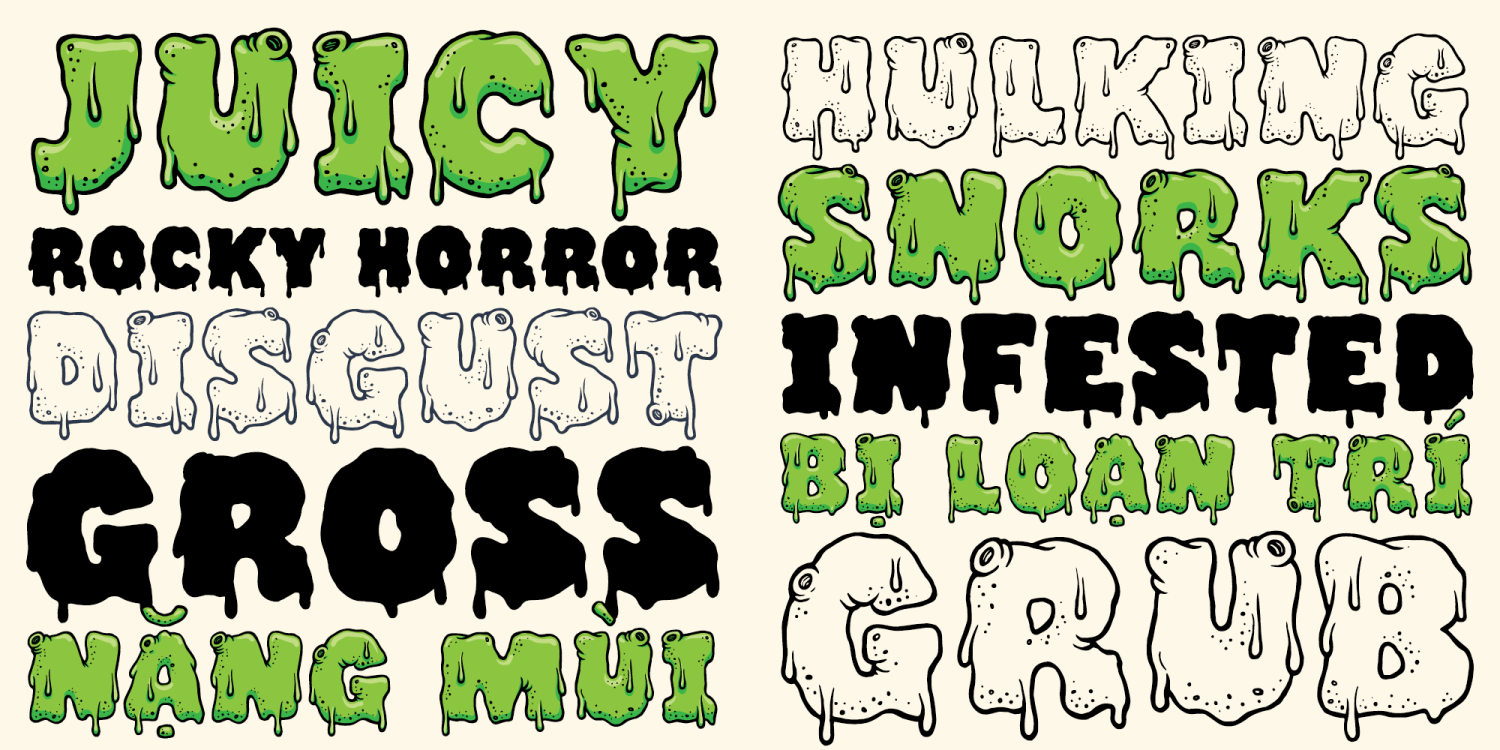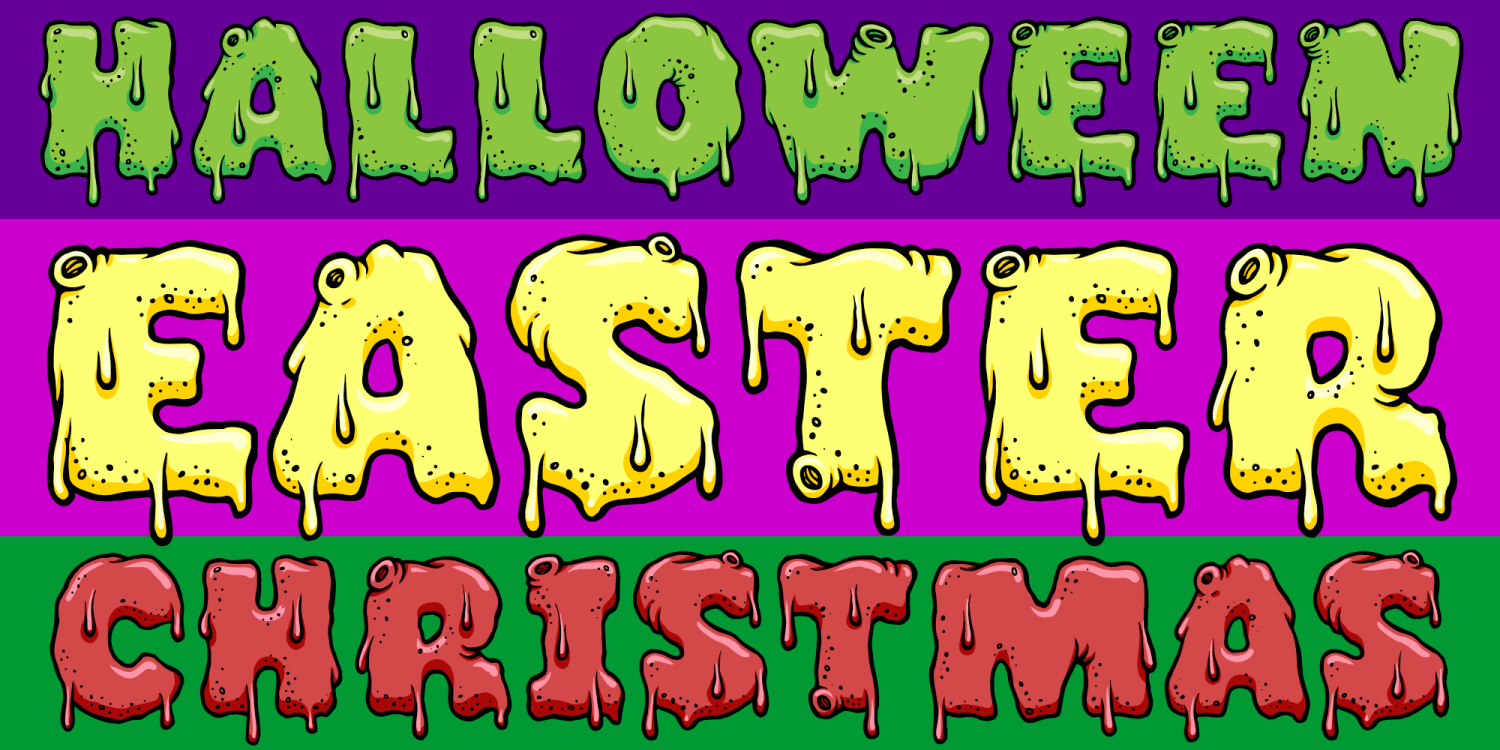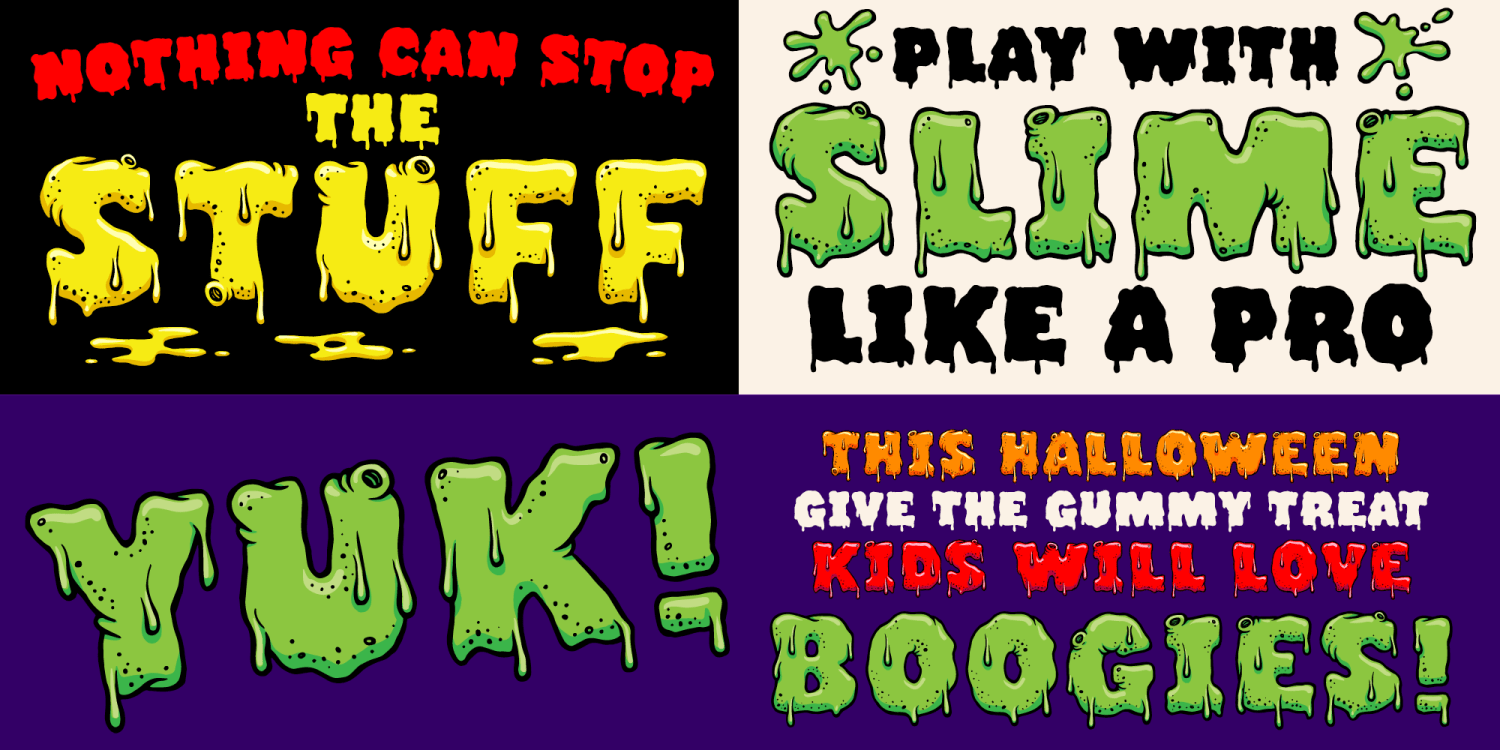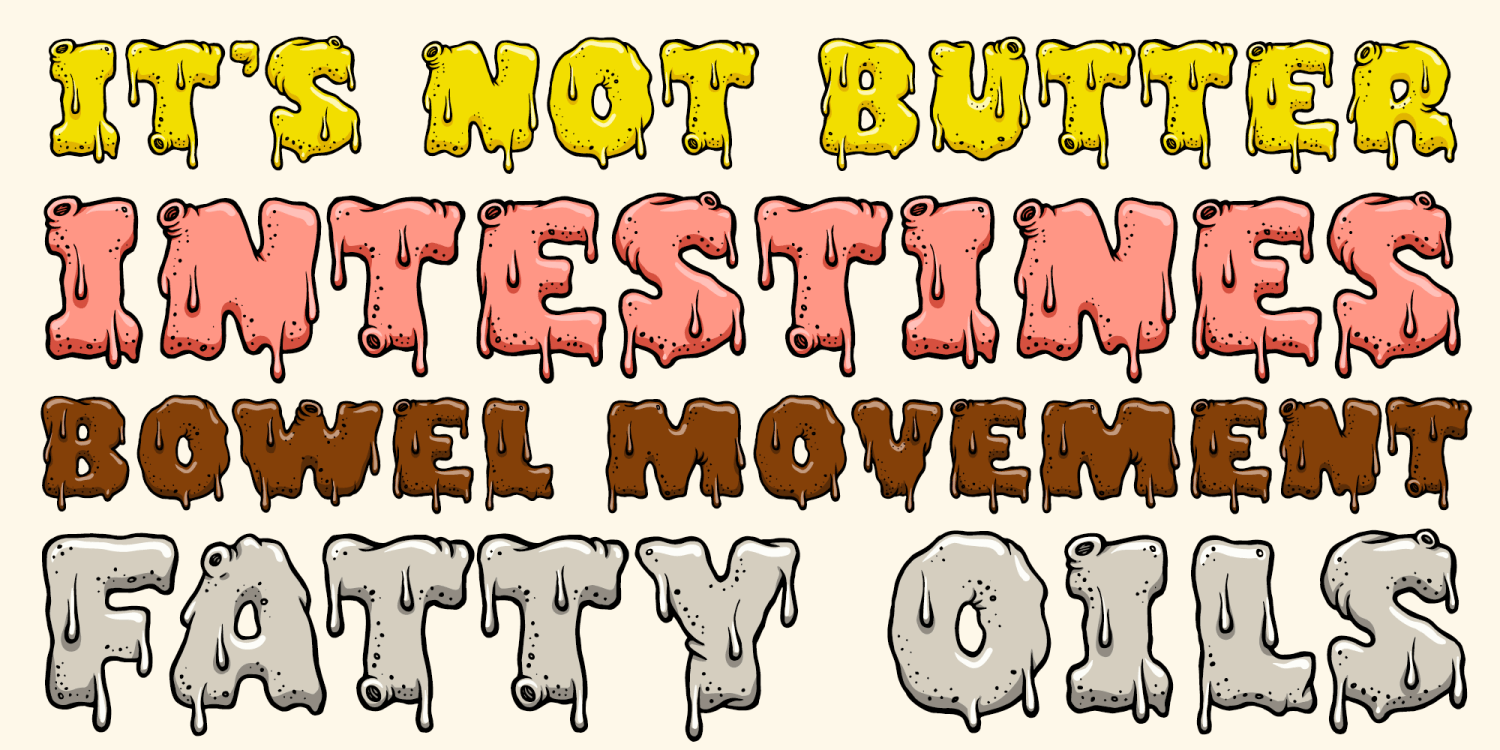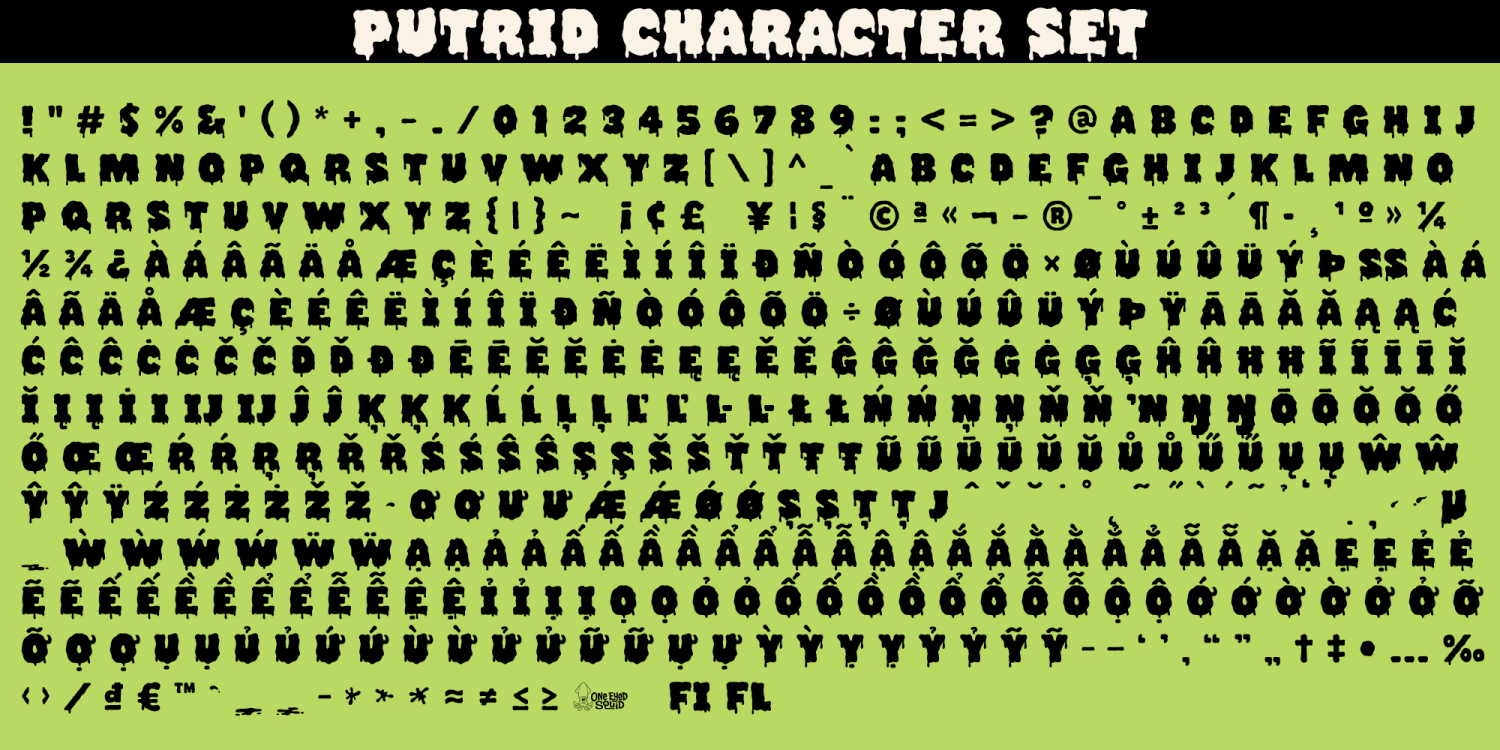
Putrid Layerable Fonts
It's snot just your average fetid, festering font! Putrid is piled high with pus, brimming with bile, and dripping with decomposing dribbles.
This bundle is a collection of all of the non-SVG fonts of the Putrid family, which you can colorize and layer to create the same effect as the Full Color SVG font, but use in any application that allows layering of fonts. So if you can't use Color SVG fonts yet for any reason, you can still get the effect by layering these fonts.
The color layering order from bottom to top would be: Fill, Shadow, Highlight, and Regular on top.
(Putrid contains an extended Latin character set with added Vietnamese support.)